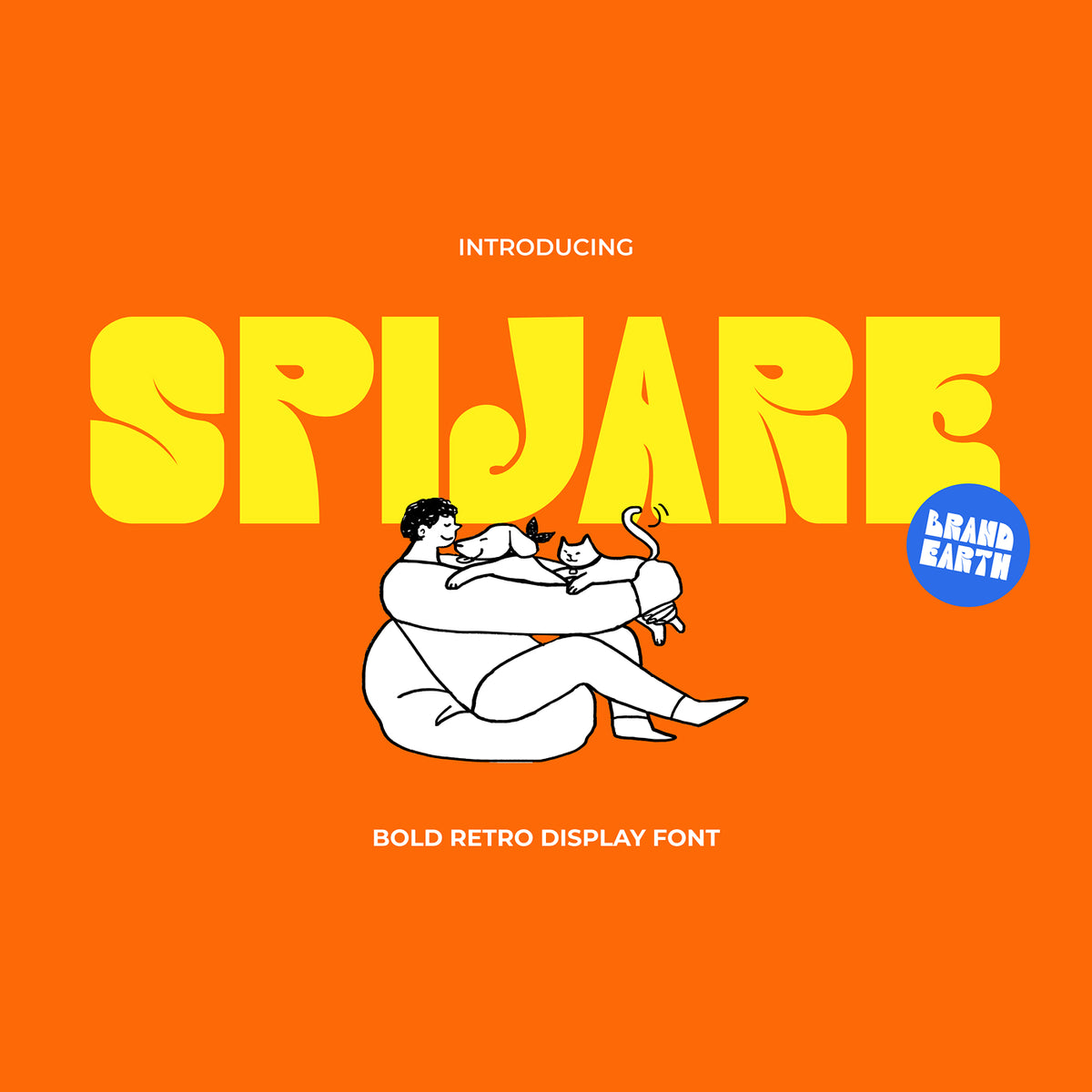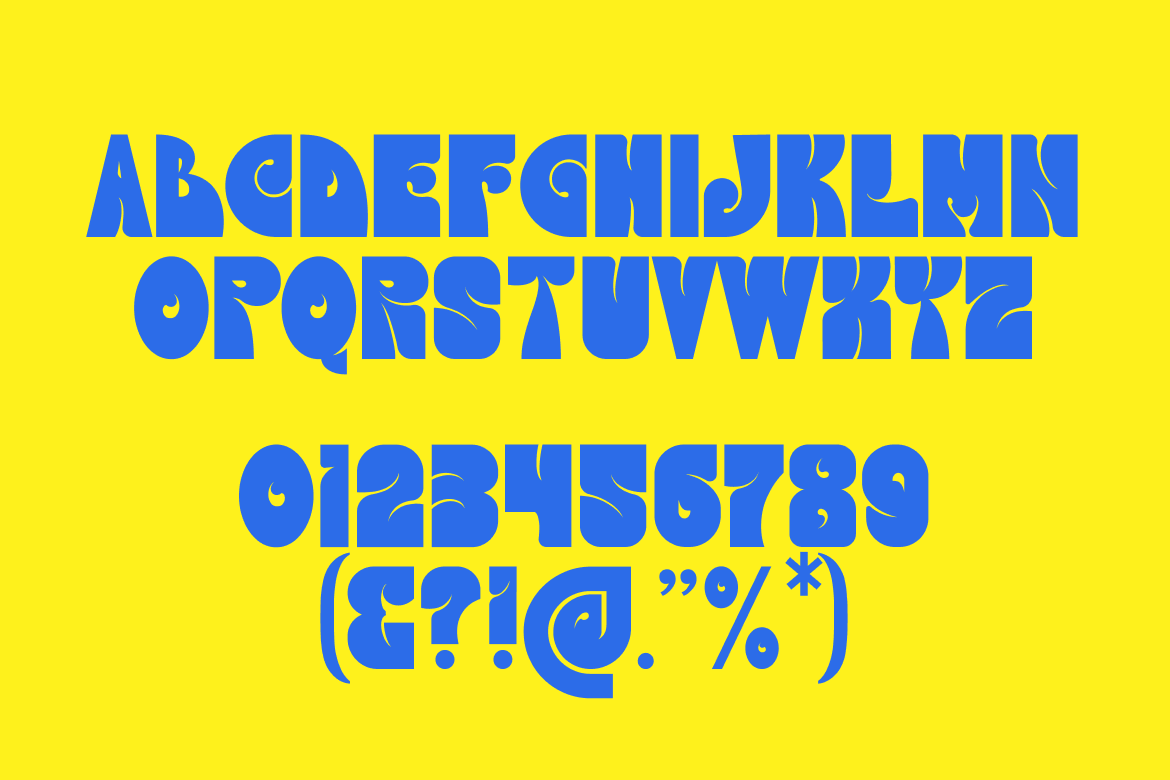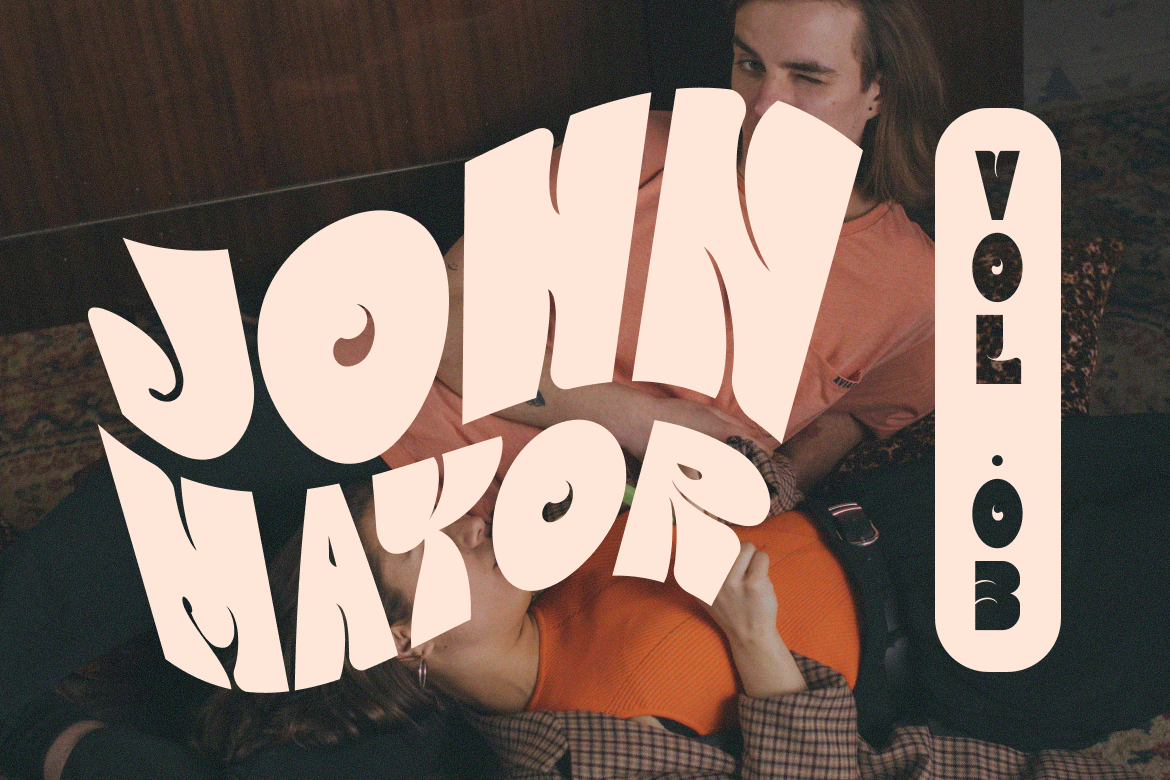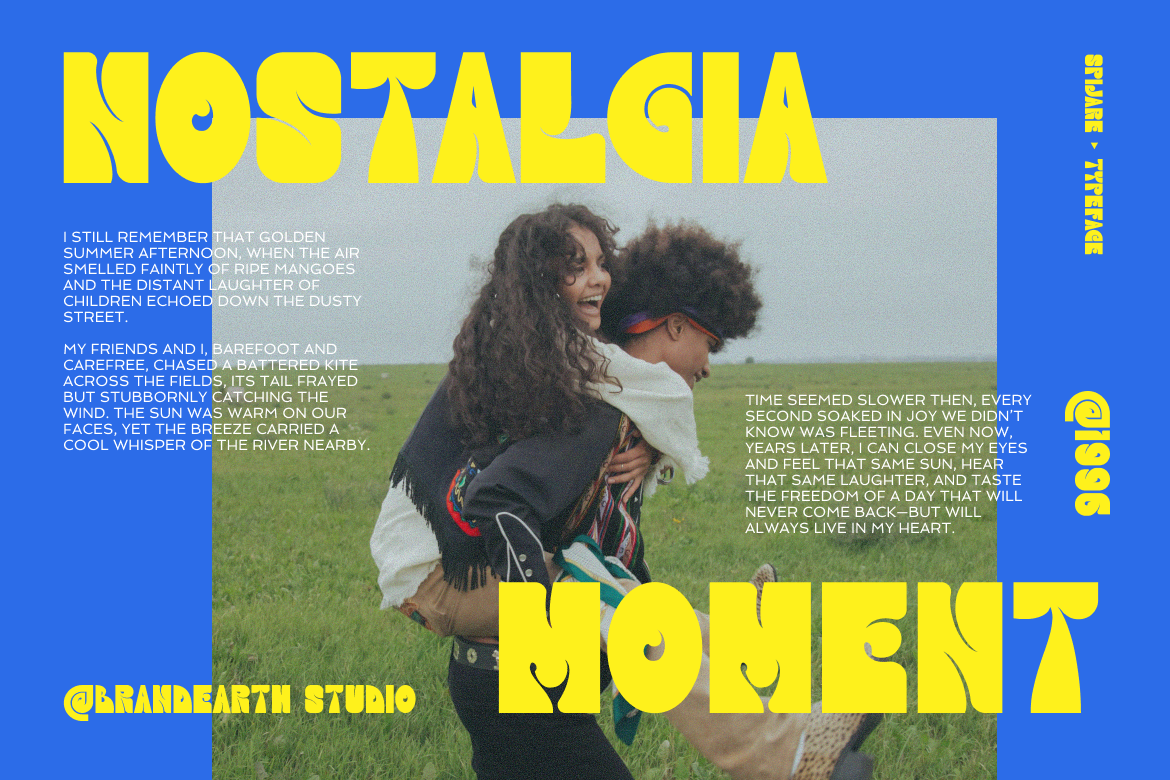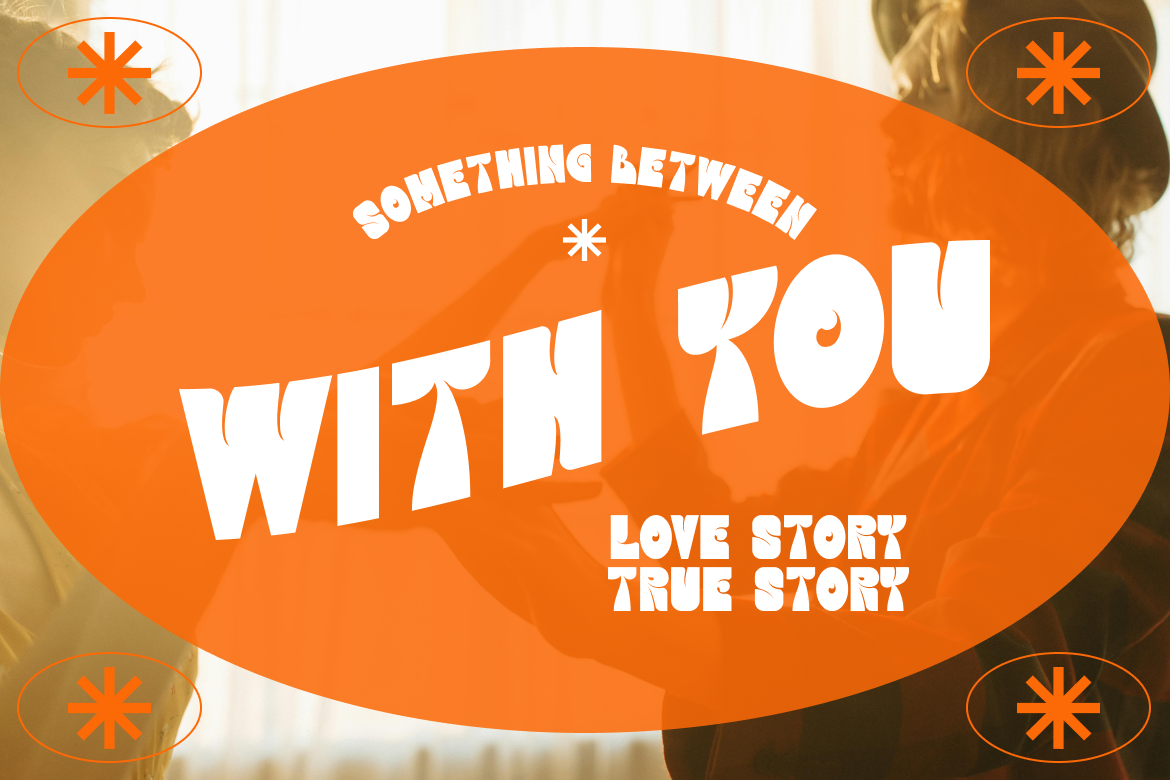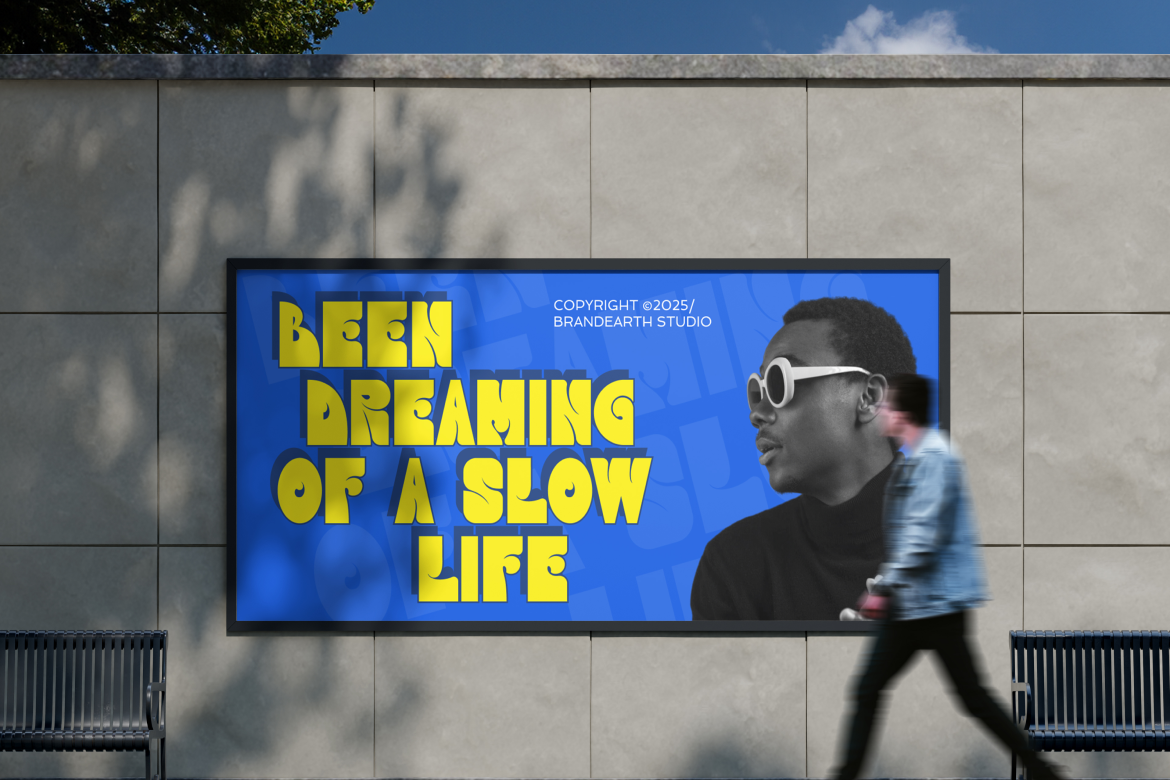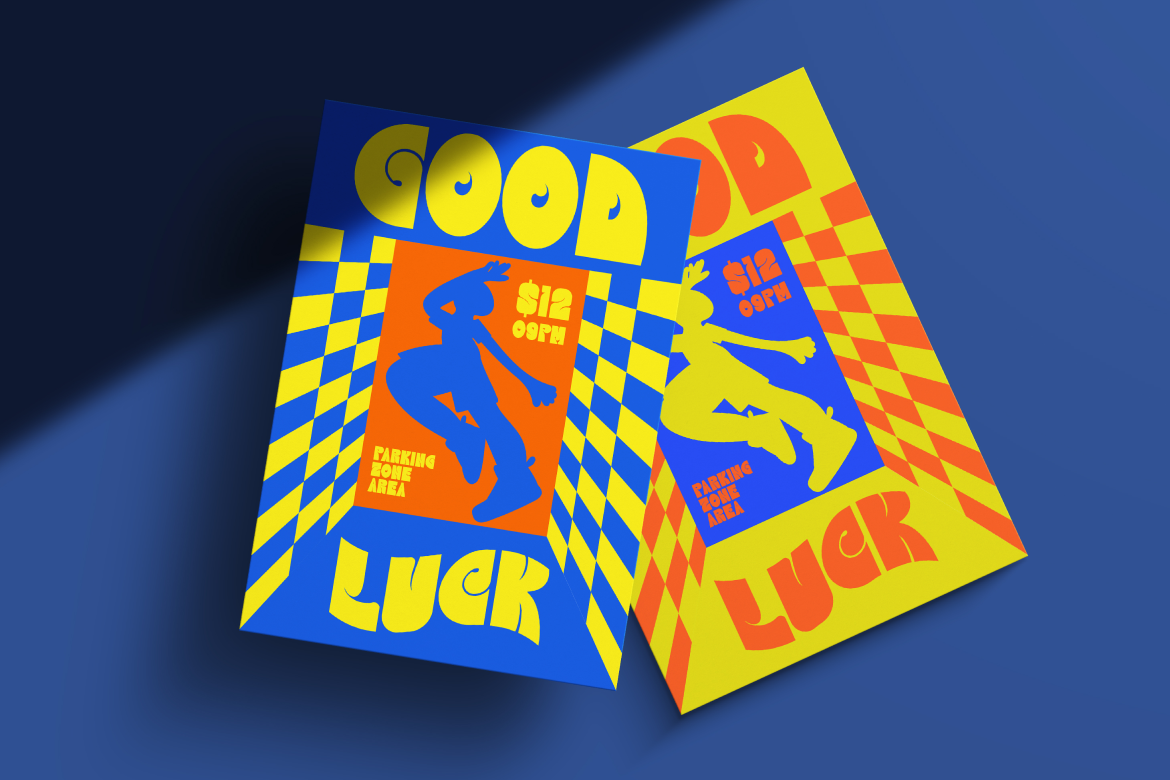
Spijare Bold Retro Display Font
Spijare is a bold retro display font with a distinctive psychedelic twist, perfect for eye-catching headlines, playful branding, and vibrant design projects. Featuring all caps letters with geometric curves and dynamic shapes, this font blends groovy 70s nostalgia with modern boldness. Ideal for posters, album covers, logos, and creative merchandise, Spijare adds an energetic and stylish punch to any layout. Its unique form makes it perfect for retro revival designs, vintage-style graphics, and fun typography compositions.
Spijare is a bold retro display font with a psychedelic style, featuring all-caps letters with geometric curves and dynamic shapes. It includes uppercase and lowercase characters, numerals, and punctuation, available in TTF, OTF, and WOFF formats.